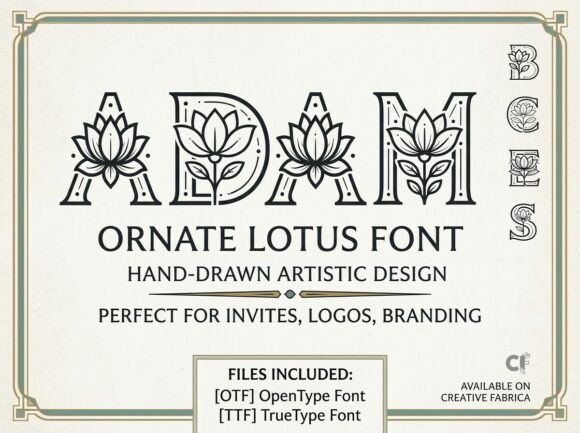
Introducing Adam: The Premium Ornate Lotus Font for Luxury Brands
In the world of typography, fonts play a crucial role in shaping the identity of a brand. For luxury brands, a font that exudes elegance, sophistication, and timeless beauty is essential. This is where Adam, a premium ornate lotus font, comes into play. Designed to elevate your branding to a state of divine elegance, Adam is the perfect choice for luxury hotels, high-end spas, yoga studios, and premium organic packaging.
The Inspiration Behind Adam
Adam is inspired by the majestic lotus flower, a symbol of purity and enlightenment in many Eastern cultures. The font’s architectural serif structure and intricate, integrated lotus motifs reflect the flower’s beauty and significance. The gold-etched aesthetic and symmetrical flourishes add a touch of luxury and sophistication, making Adam a standout font in the world of typography.
Key Features of Adam Font
- Ornate Lotus Motifs: Adam’s unique lotus motifs are intricately designed and integrated into the font, making it a true standout.
- Architectural Serif Structure: The font’s serif structure is inspired by ancient architecture, adding a sense of grandeur and luxury.
- Gold-Etched Aesthetic: The gold-etched aesthetic gives Adam a sense of opulence and sophistication, perfect for luxury brands.
- Symmetrical Flourishes: The font’s symmetrical flourishes add a touch of elegance and refinement.
Best Use Cases for Adam Font
Adam is a versatile font that can be used in various contexts, but it’s particularly suited for:
- Luxury Hotel Branding: Adam’s elegant and sophisticated design makes it perfect for luxury hotel branding, adding a touch of luxury and refinement to your hotel’s identity.
- High-End Spa Identities: The font’s calming and serene design makes it ideal for high-end spas, yoga studios, and wellness centers.
- Yoga Studio Logos: Adam’s lotus-inspired design makes it a natural fit for yoga studios and wellness centers.
- Premium Organic Packaging: The font’s luxurious and sophisticated design makes it perfect for premium organic packaging, adding a touch of elegance to your brand’s packaging.
Why Choose Adam Font?
With so many fonts available, why choose Adam? Here are a few reasons:
- Unique Design: Adam’s unique lotus-inspired design sets it apart from other fonts, making it a true standout.
- Luxurious Aesthetic: The font’s gold-etched aesthetic and symmetrical flourishes give it a luxurious and sophisticated feel.
- Versatility: Adam is a versatile font that can be used in various contexts, from luxury hotels to premium organic packaging.
- Elegance and Sophistication: Adam exudes elegance and sophistication, making it perfect for luxury brands that want to communicate heritage, spirituality, and timeless beauty.
Tips for Using Adam Font
To get the most out of Adam font, here are a few tips:
- Use it Sparingly: Adam’s ornate design makes it best suited for headlines and titles. Use it sparingly to create a lasting impression.
- Pair it with a Simple Font: Pair Adam with a simple font to create a striking contrast and add visual interest to your design.
- Experiment with Colors: Adam’s gold-etched aesthetic looks stunning in metallic colors. Experiment with different colors to find the perfect fit for your brand.
Adam, a premium ornate lotus font, is the perfect choice for luxury brands that want to communicate heritage, spirituality, and timeless beauty. With its unique design, luxurious aesthetic, and versatility, Adam is sure to elevate your branding to a state of divine elegance. Whether you’re a designer or a crafter, Adam is a font that’s sure to inspire and impress.